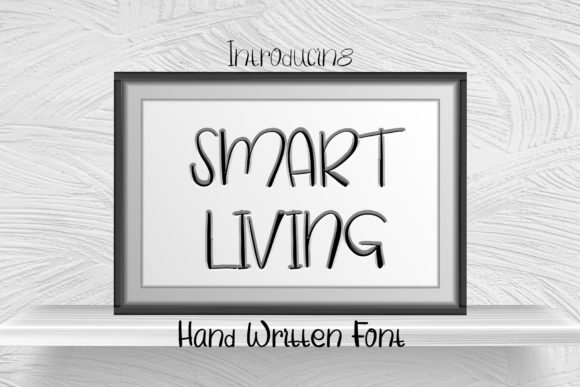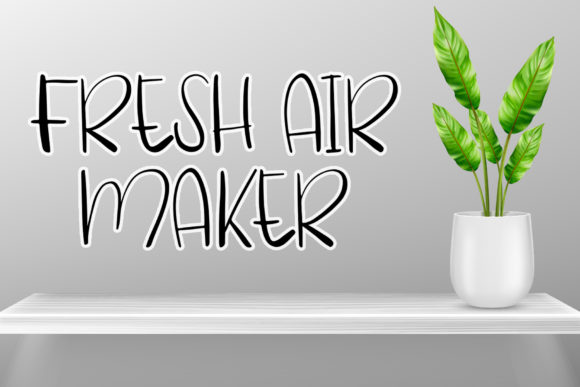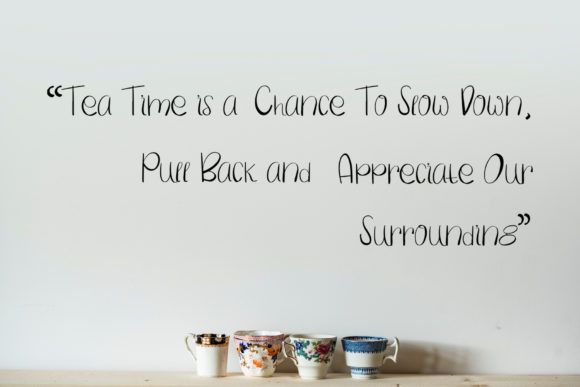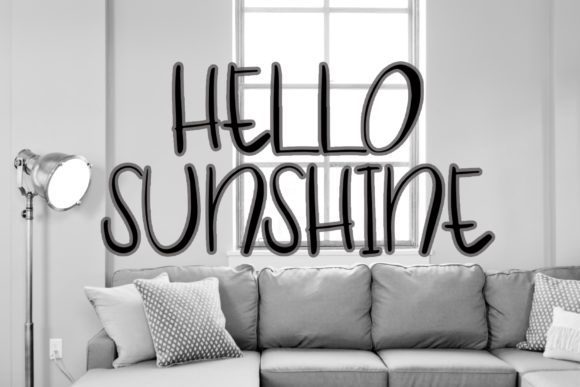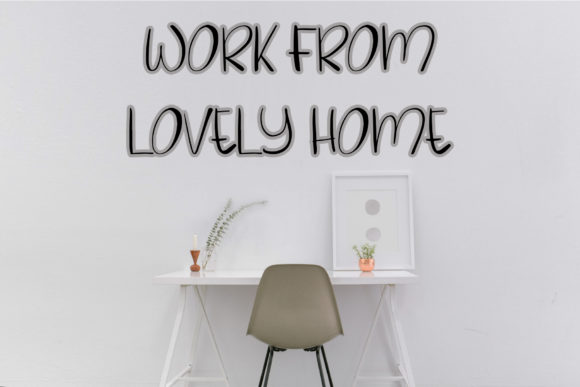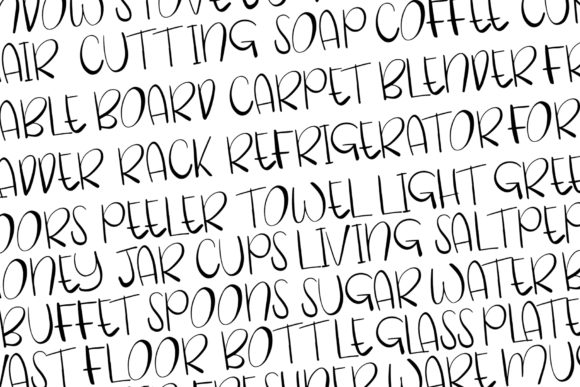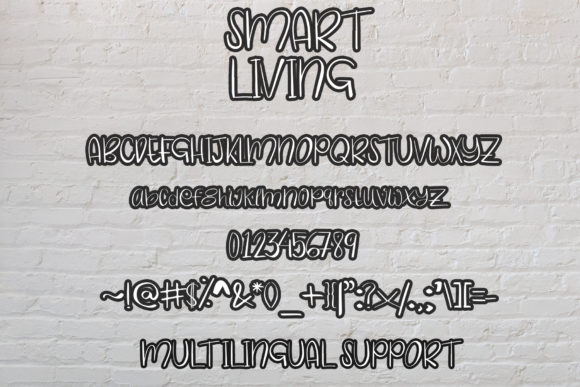
Smart Living Font
Smart Living is a casual and relaxed handwritten font. Whether you’re looking for fonts for Instagram or calligraphy scripts for DIY projects, this font will turn any creative idea into a true piece of art!